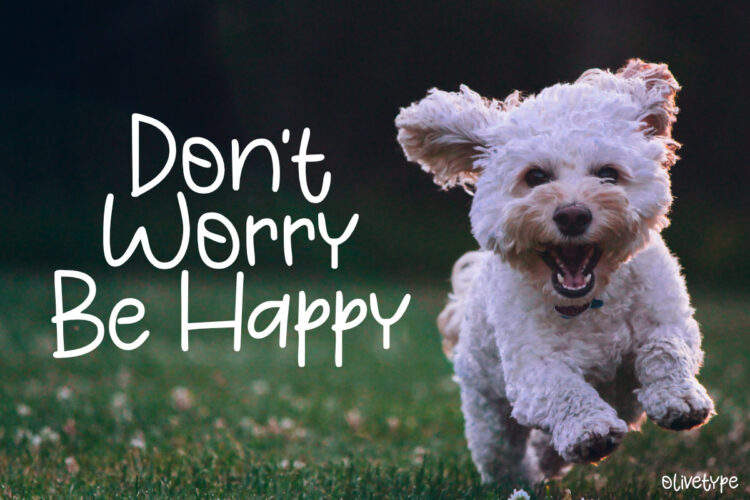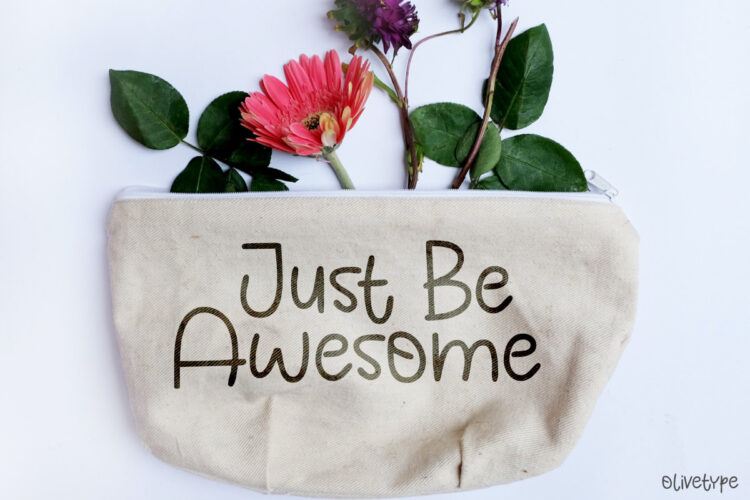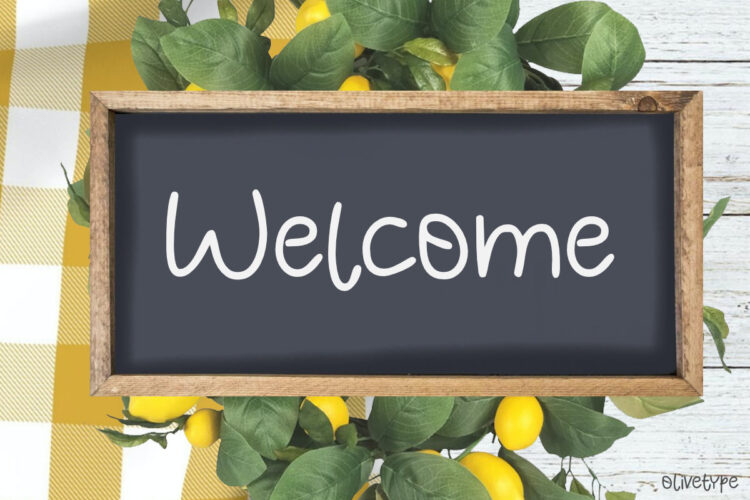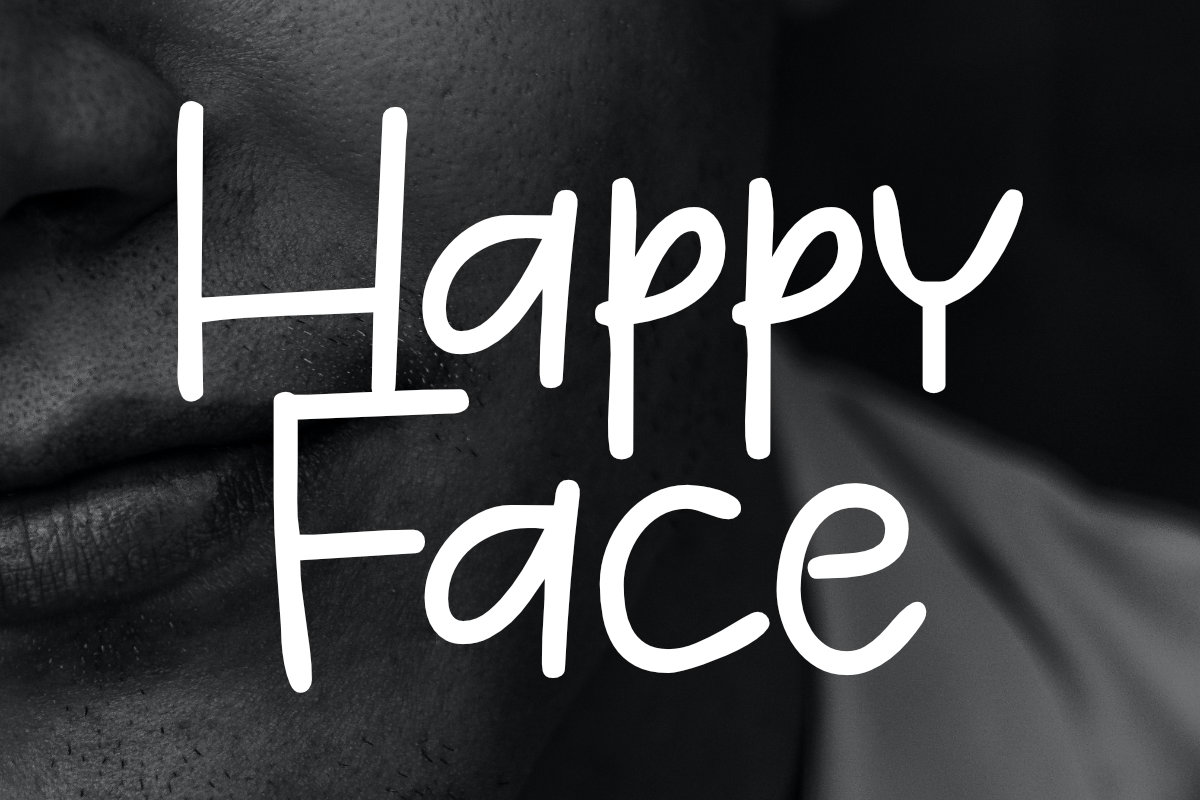
Happy Face is a cute handwritten font, featuring a lovely style.
This font is supporting more than 66 languages, which include: Afrikaans Albanian Catalan Danish Dutch English Estonian Finnish French German Italian Norwegian Portuguese Spanish Swedish Zulu, and more.
- Basic Latin A-Z & a-z.